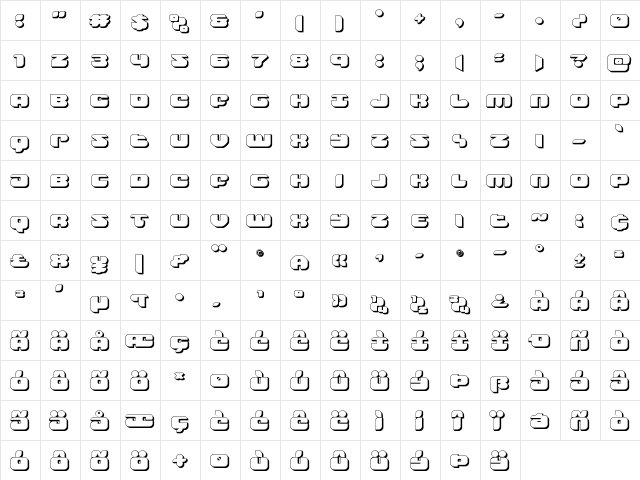
Groovy Smoothie 3D Regular
Design Context for Groovy Smoothie 3D Typeface
Groovy Smoothie 3D is a composed and adaptable typeface that performs quietly and consistently across a wide range of design contexts.